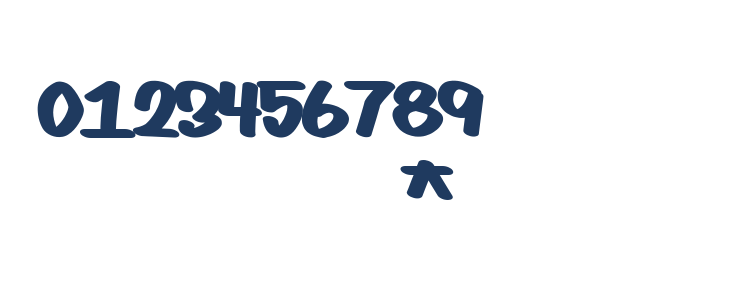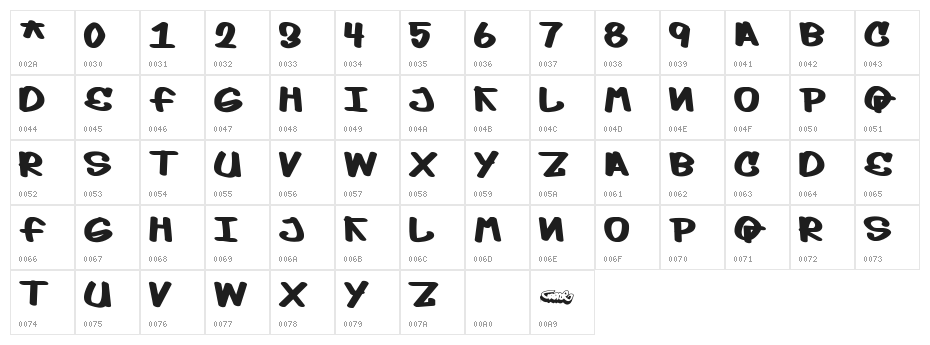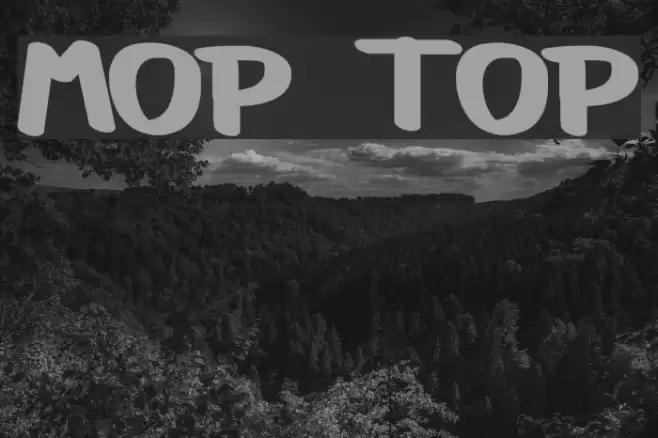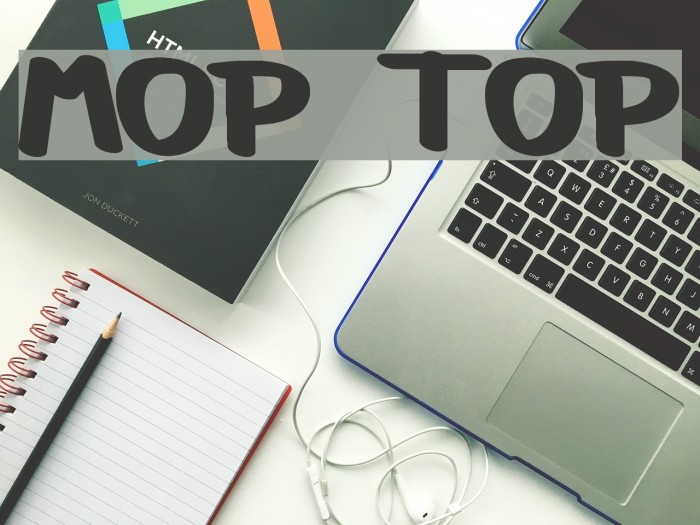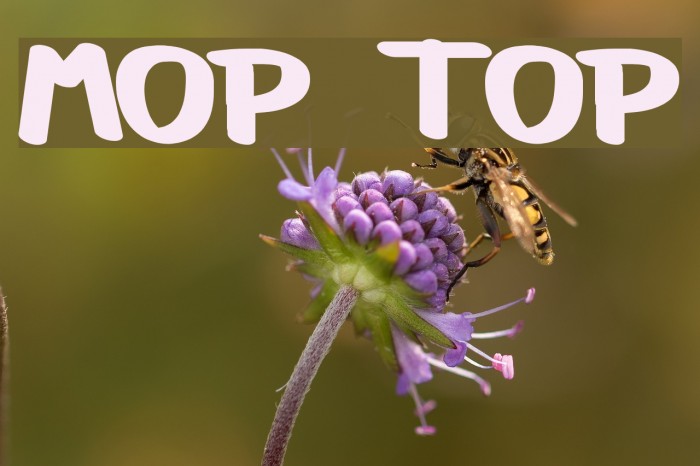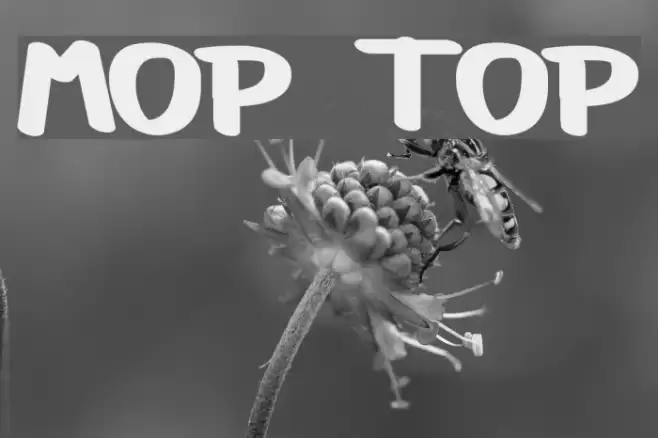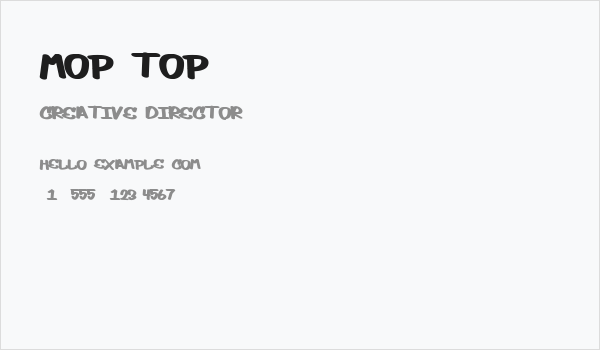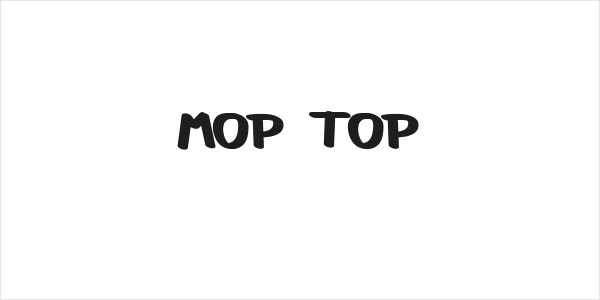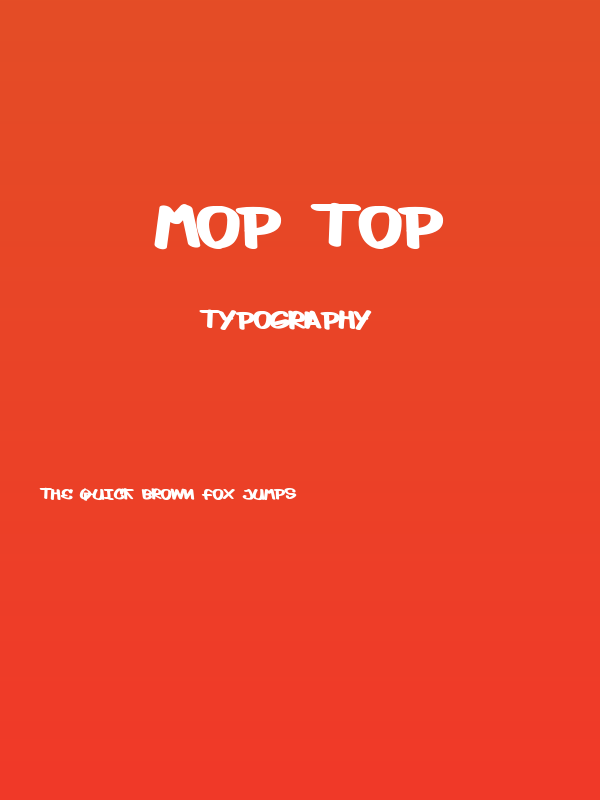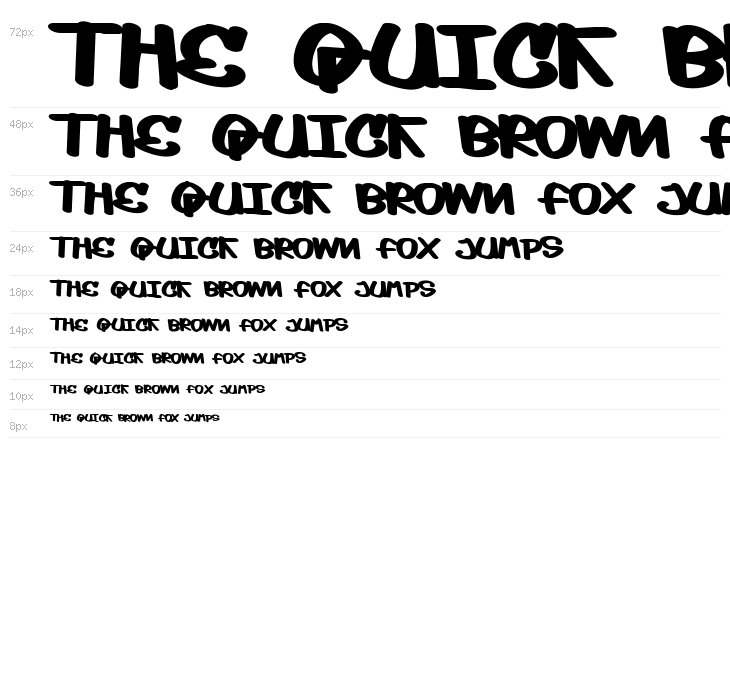
Mop Top Font
Mop Top Description
This playful and bold font features a handwritten style with thick, rounded strokes that give it a lively and energetic appearance. The characters are slightly slanted, adding a dynamic feel, while the consistent thickness throughout ensures readability. The font's whimsical nature is emphasized by its exaggerated curves and loops, making it stand out in any design. Perfect for projects that require a fun and informal touch, this font is both eye-catching and approachable. Its unique style is suitable for a variety of creative applications, from children's book covers to playful branding materials.
| Proposed Projects | Ideal for children's books, playful branding, posters, and creative invitations. |